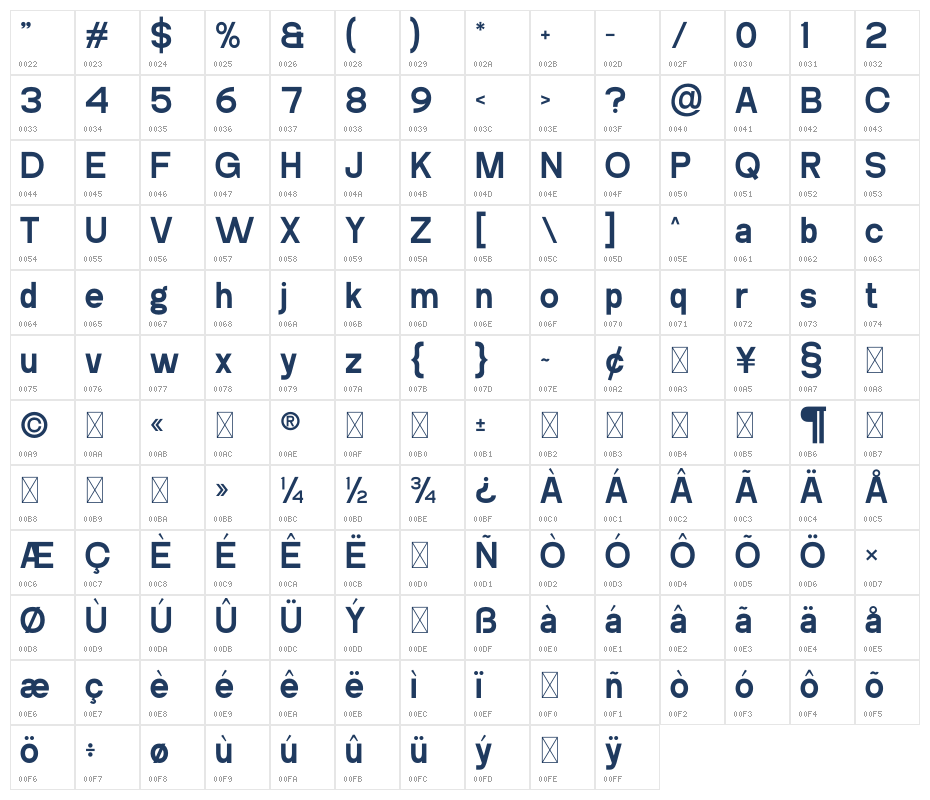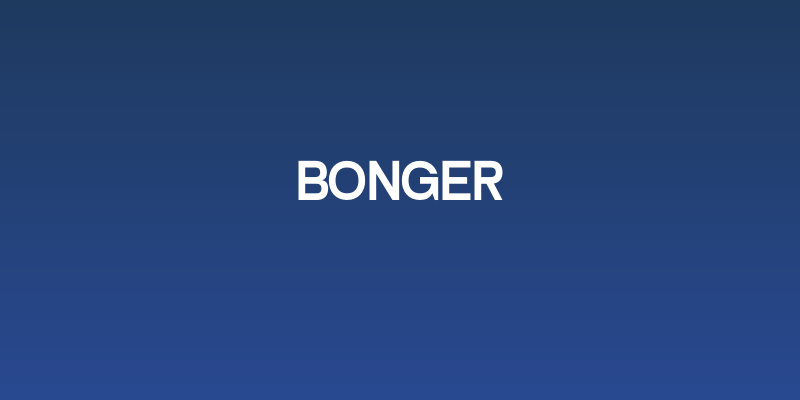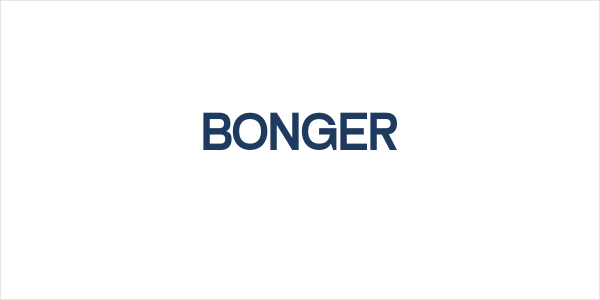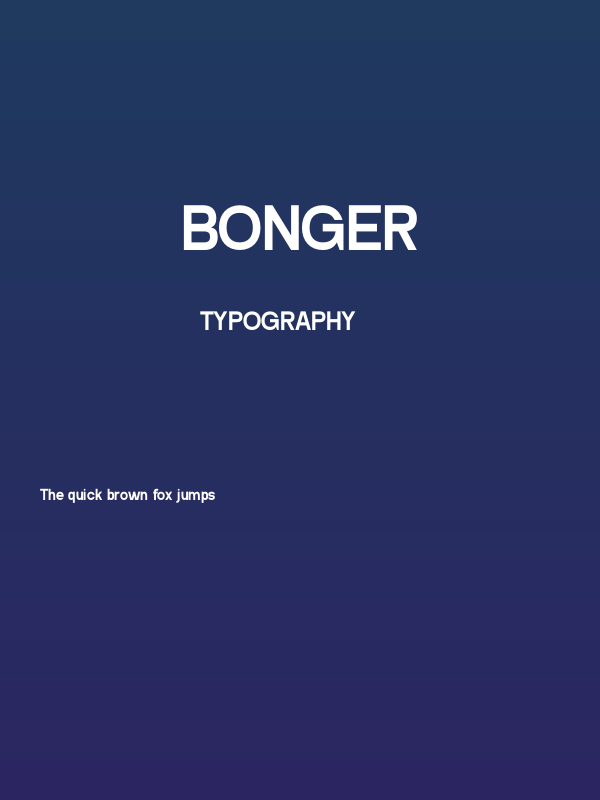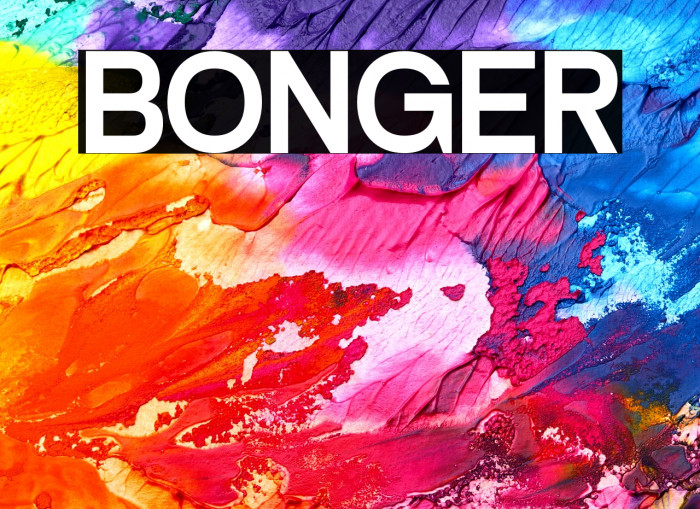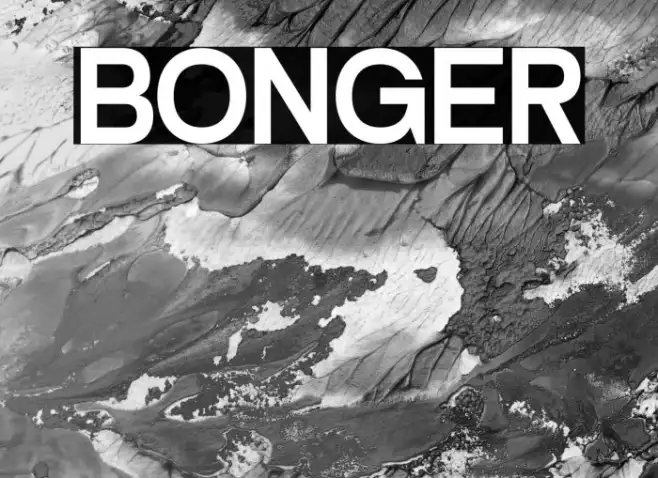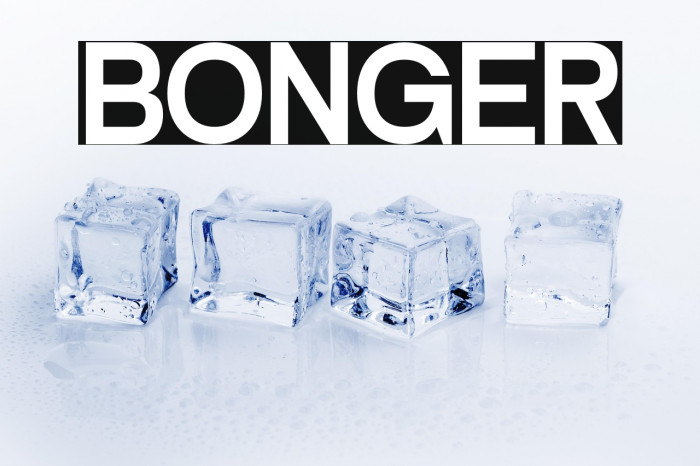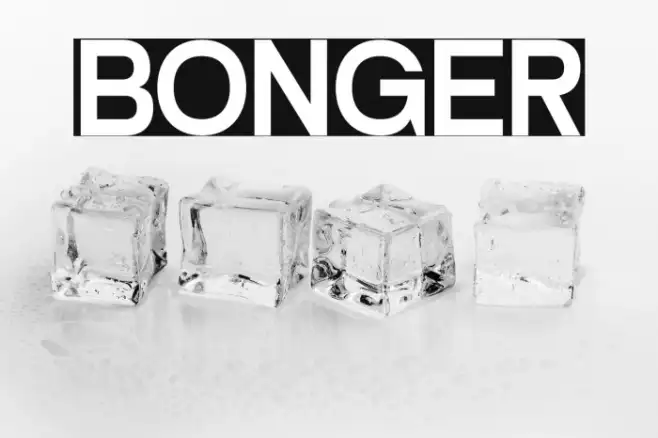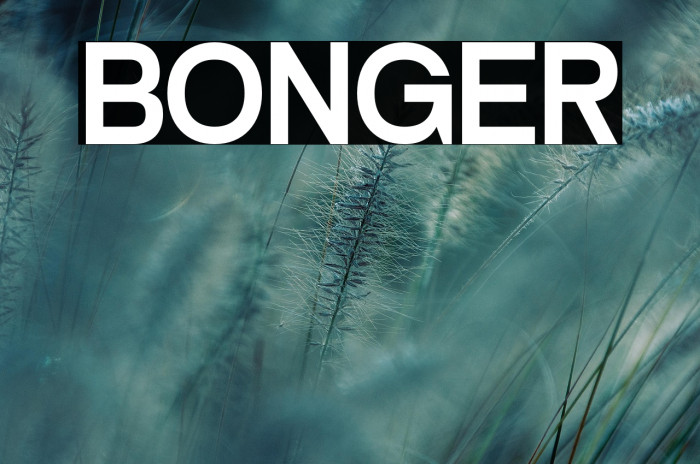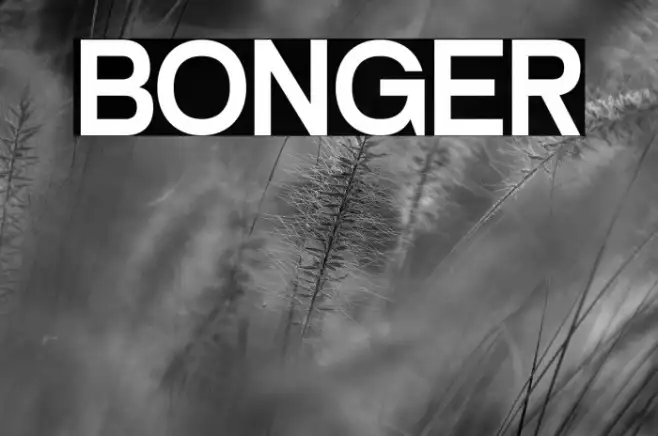
BONGER Font
BONGER Description
Bold, geometric sans-serif font with uniform stroke width and modern appearance.
| Overall Style | Modern, Geometric |
| Use Case | Headlines, Display text, Logos |